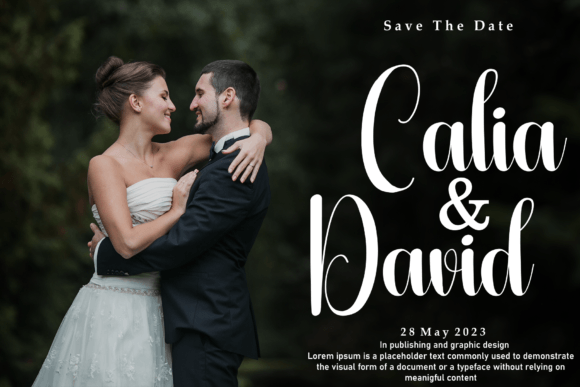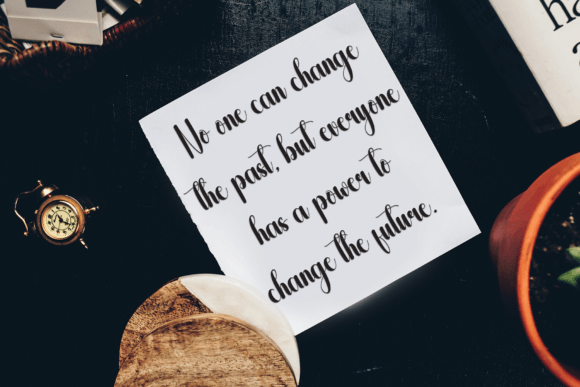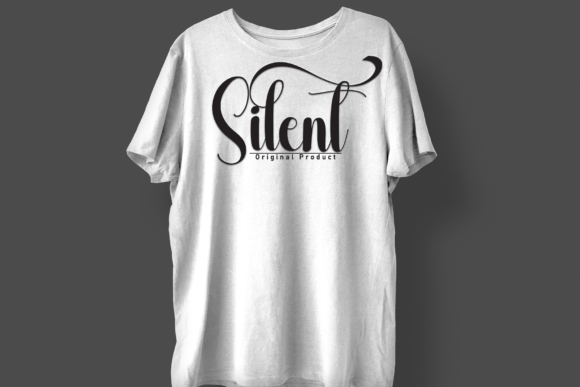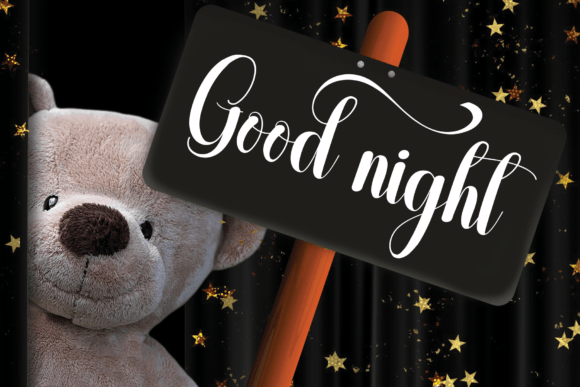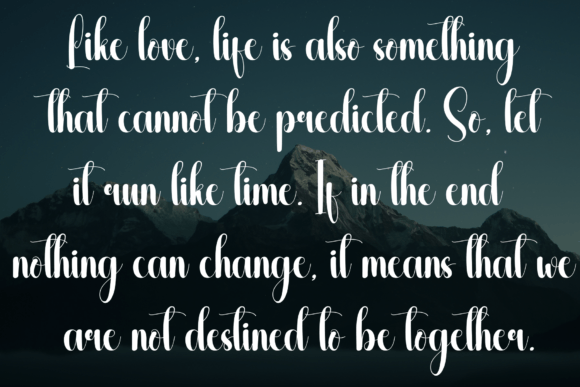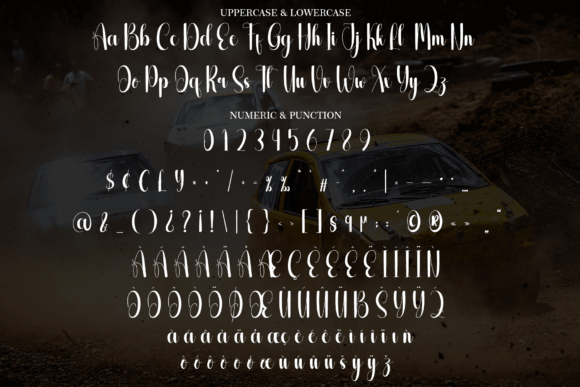
Introduction to Rallying Font
Rallying is an exquisite handwritten font, masterfully designed to become a true favorite.
Key Features of Rallying Font
Why Choose Rallying Font?